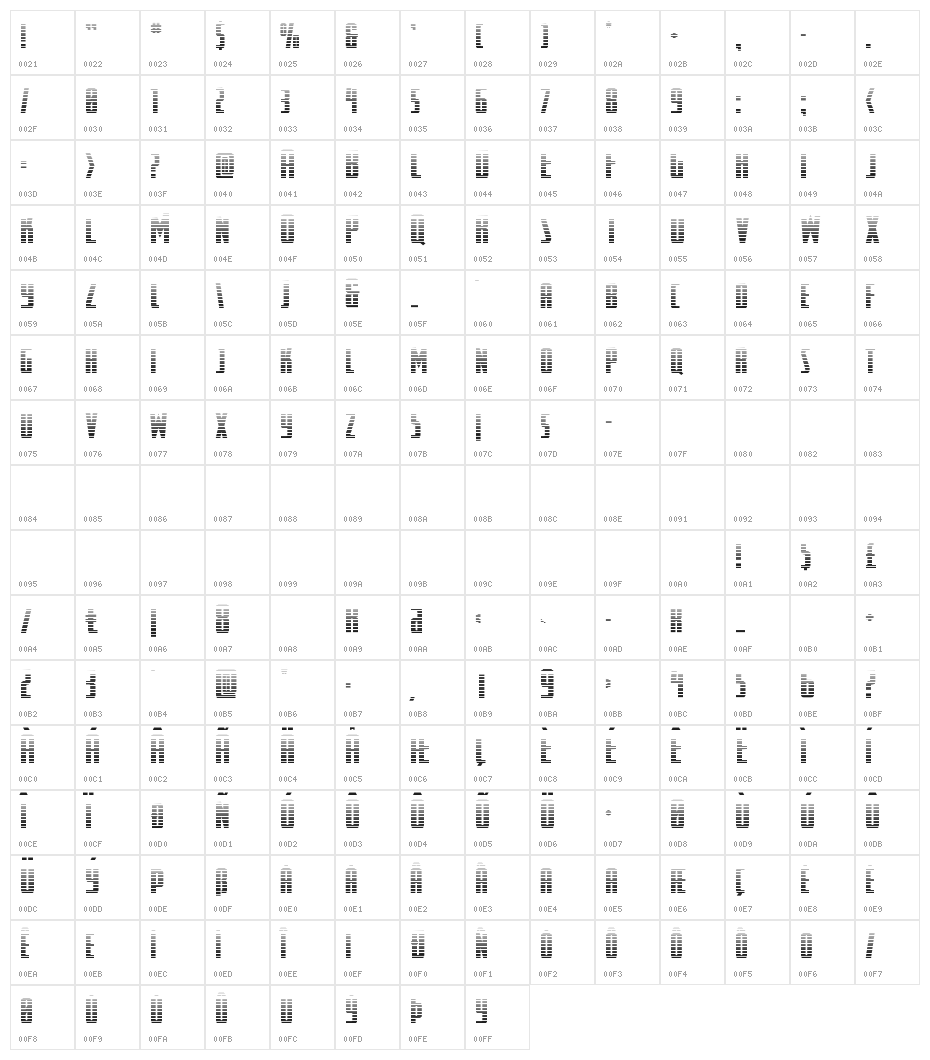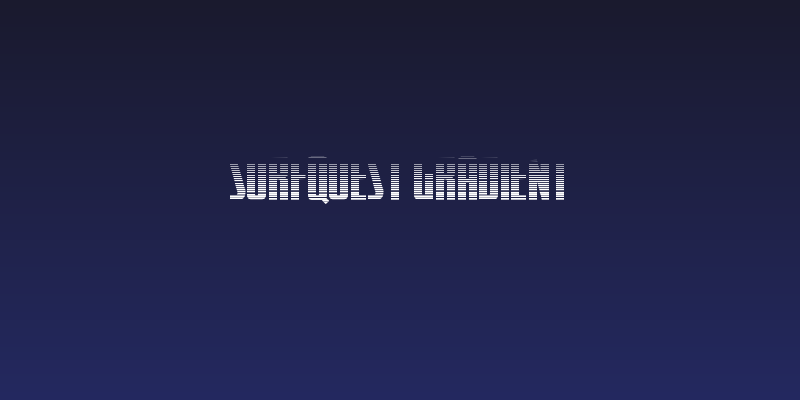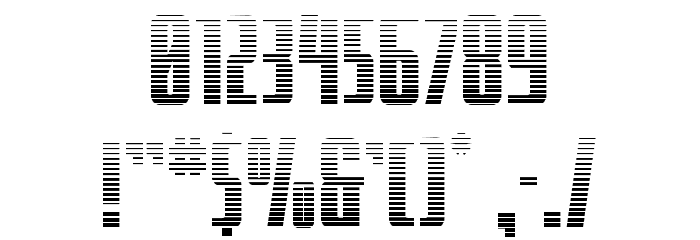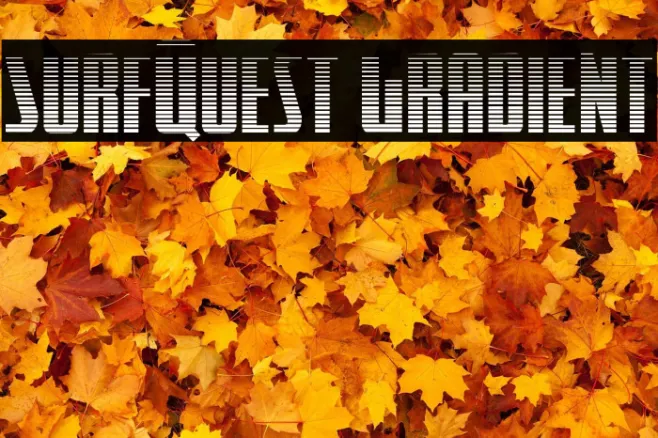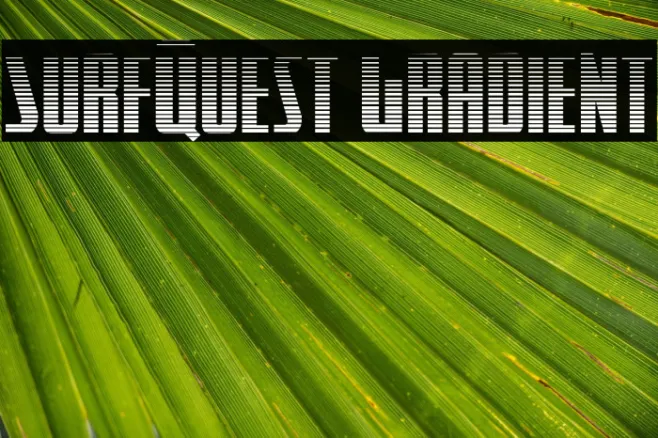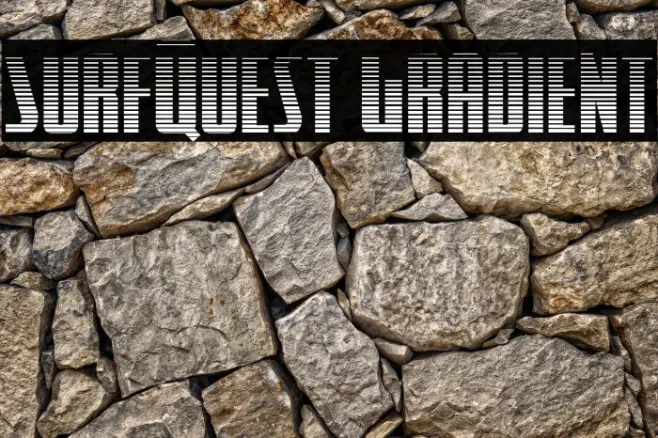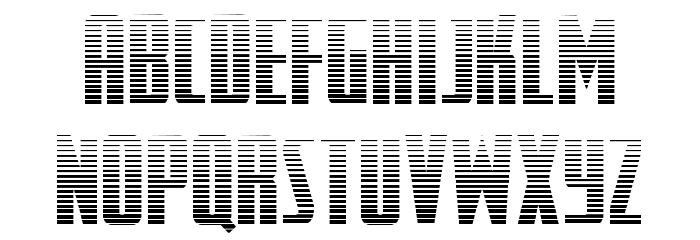
SurfQuest Gradient Font
SurfQuest Gradient Description
This font features a bold, modern design with a unique gradient effect created by horizontal lines that vary in thickness. The uppercase and lowercase letters are designed with a strong geometric structure, giving them a futuristic and dynamic appearance. The numbers and special characters follow the same stylistic approach, ensuring consistency across all elements. The font's distinct style makes it stand out, ideal for projects that require a contemporary and eye-catching look.